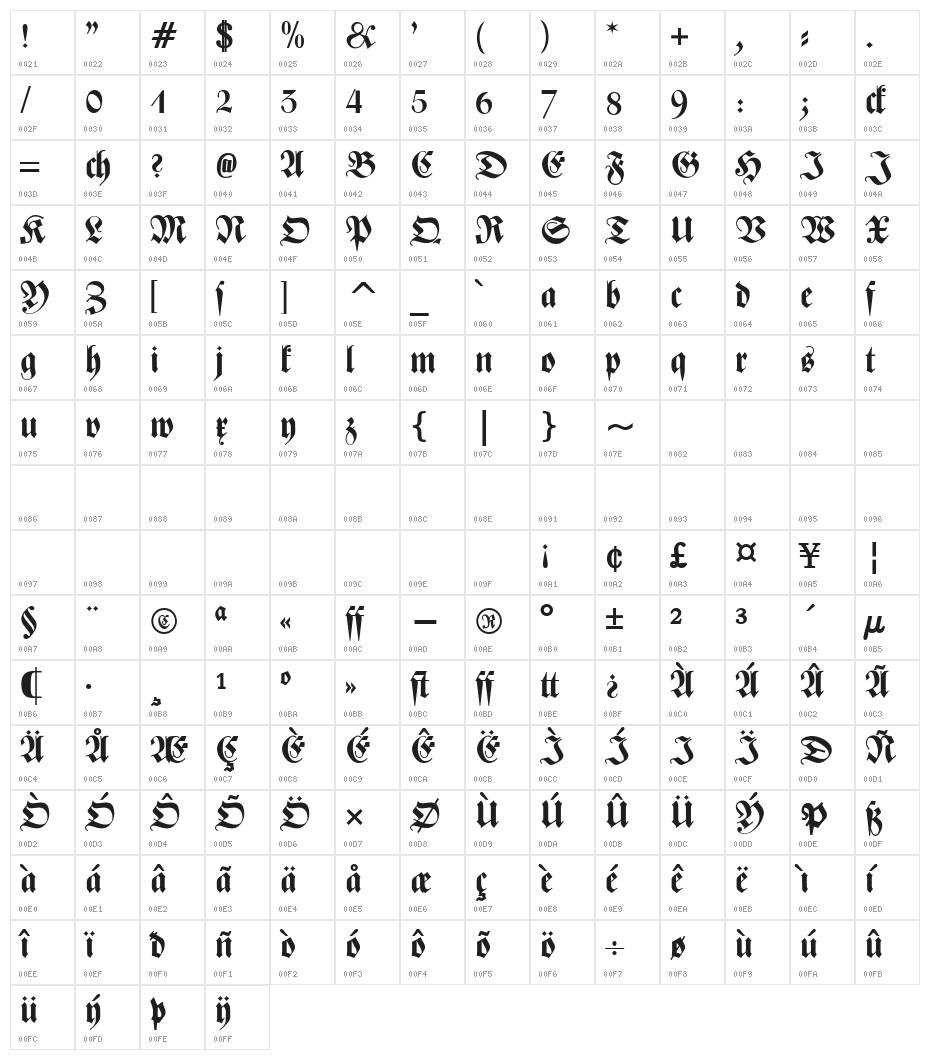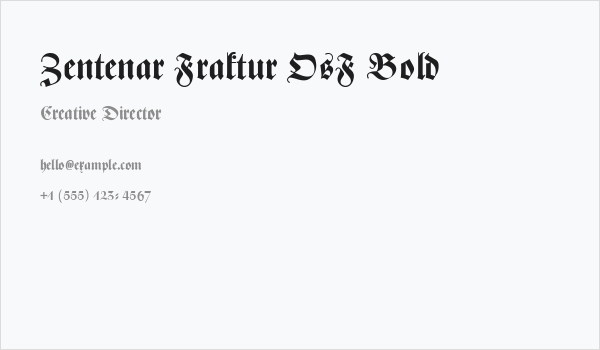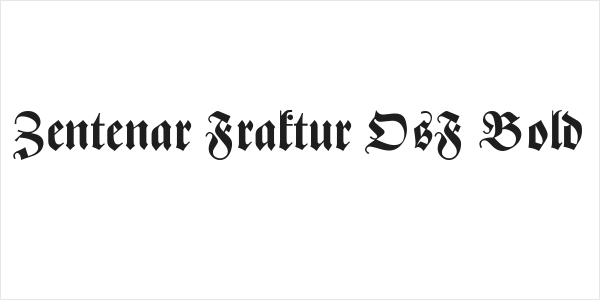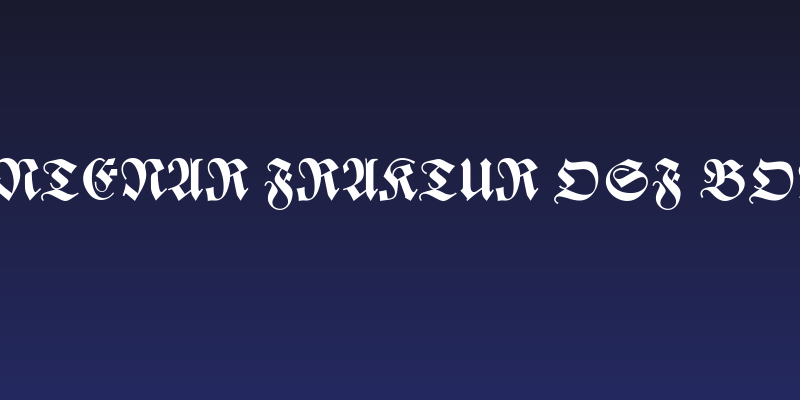
Zentenar Fraktur OsF Bold Font
Zentenar Fraktur OsF Bold Description
This font exhibits a traditional and ornate style, reminiscent of historical blackletter typefaces. The characters are bold and intricate, with sharp angles and elaborate curves that give it a distinct, medieval appearance. The uppercase letters are particularly decorative, featuring flourishes and embellishments that enhance their visual impact. The lowercase letters maintain a consistent style, with a slightly more restrained design that complements the uppercase set. The numerals and special characters are designed to match the overall aesthetic, ensuring a cohesive look across all elements. This font is ideal for projects that require a touch of elegance and historical charm.
| Proposed Projects | Suitable for historical documents, certificates, book covers, and branding that requires a classic and elegant touch. |